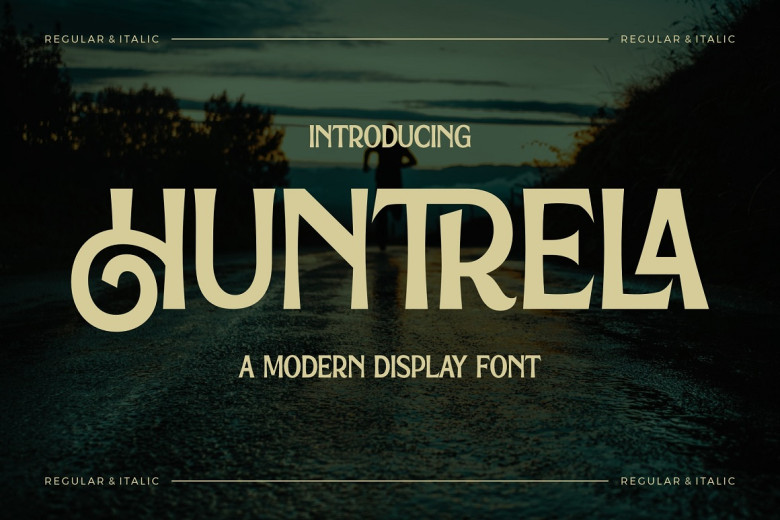
Huntrela Font
Huntrela is an elegant serif typeface which stands out with its distinctive style and modern appearance. Perfect for creating luxurious and elegant logos, book or film name designs, fashion brand magazines, clothing letters and quotes and so much more, Huntrela can bring modernity into any project it is used on.
Huntrela Serif Font